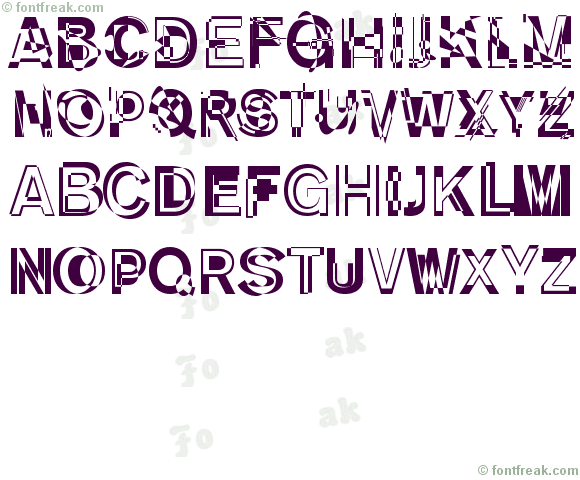
DeKunst-Initialen
About DeKunst-Initialen
DeKunst-Initialen is a captivating decorative font designed by Ingo Zimmermann in 2006. As a unique display typeface, it showcases a blend of artistry and modern design, making it an excellent choice for various creative projects. The font features a distinctive style with its bold stroke weight and intriguing contrast, resulting in letters that are both striking and legible. The spacing is thoughtfully designed to maintain clarity while allowing the decorative elements to shine, giving each character a dynamic presence.
This font is particularly well-suited for wedding invitations, where its artistic flair can add a touch of elegance to the occasion. It also works beautifully for movie posters, where the eye-catching design can draw attention and convey thematic elements effectively. Restaurant menus can benefit from the font's stylish appearance, enhancing the overall dining experience by presenting the offerings in a visually appealing manner. Additionally, graphic designers looking to create unique branding materials will find DeKunst-Initialen a valuable asset, as it can elevate logos and promotional graphics with its distinctive character.
What truly sets DeKunst-Initialen apart is its ability to combine artistry with functionality. Its unique visual elements ensure that it stands out in a crowded market, allowing any project to make a memorable impression. Whether used in print or digital media, this font is sure to leave a lasting impact.